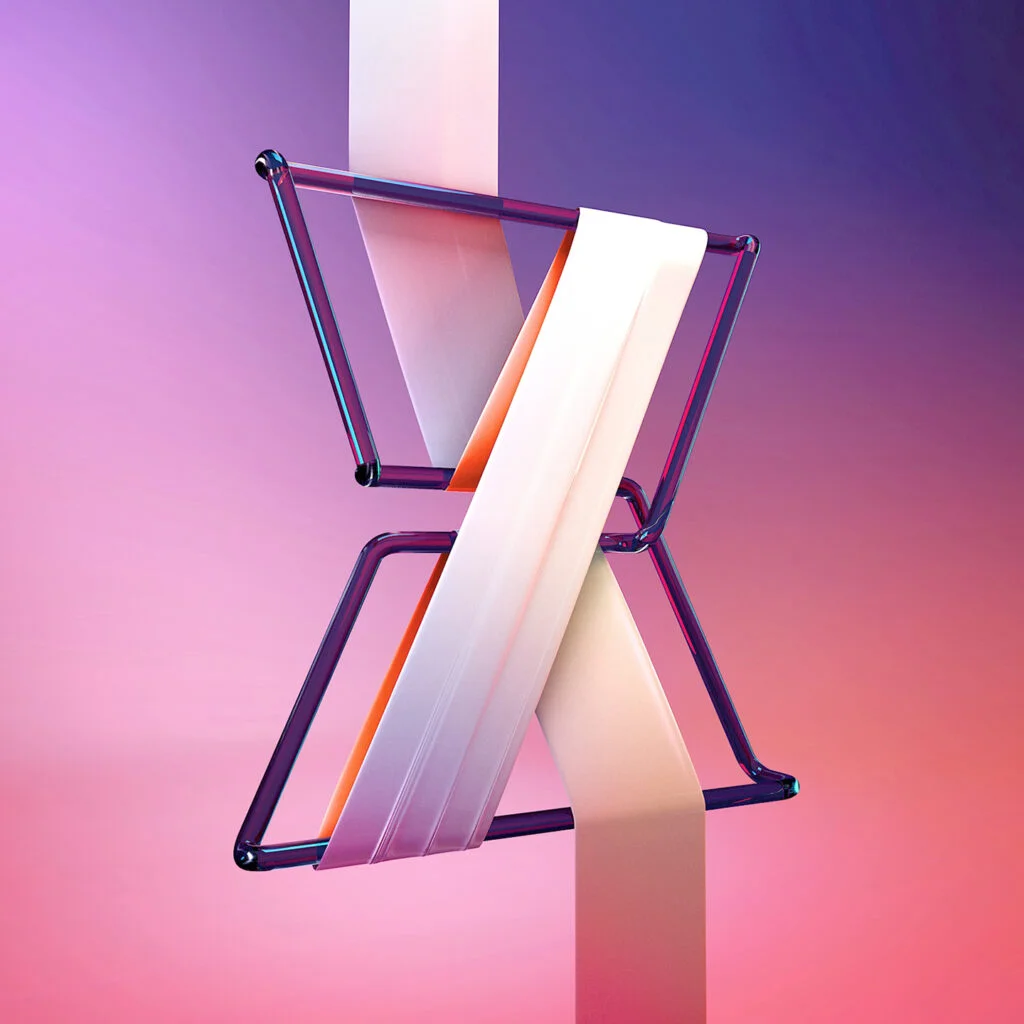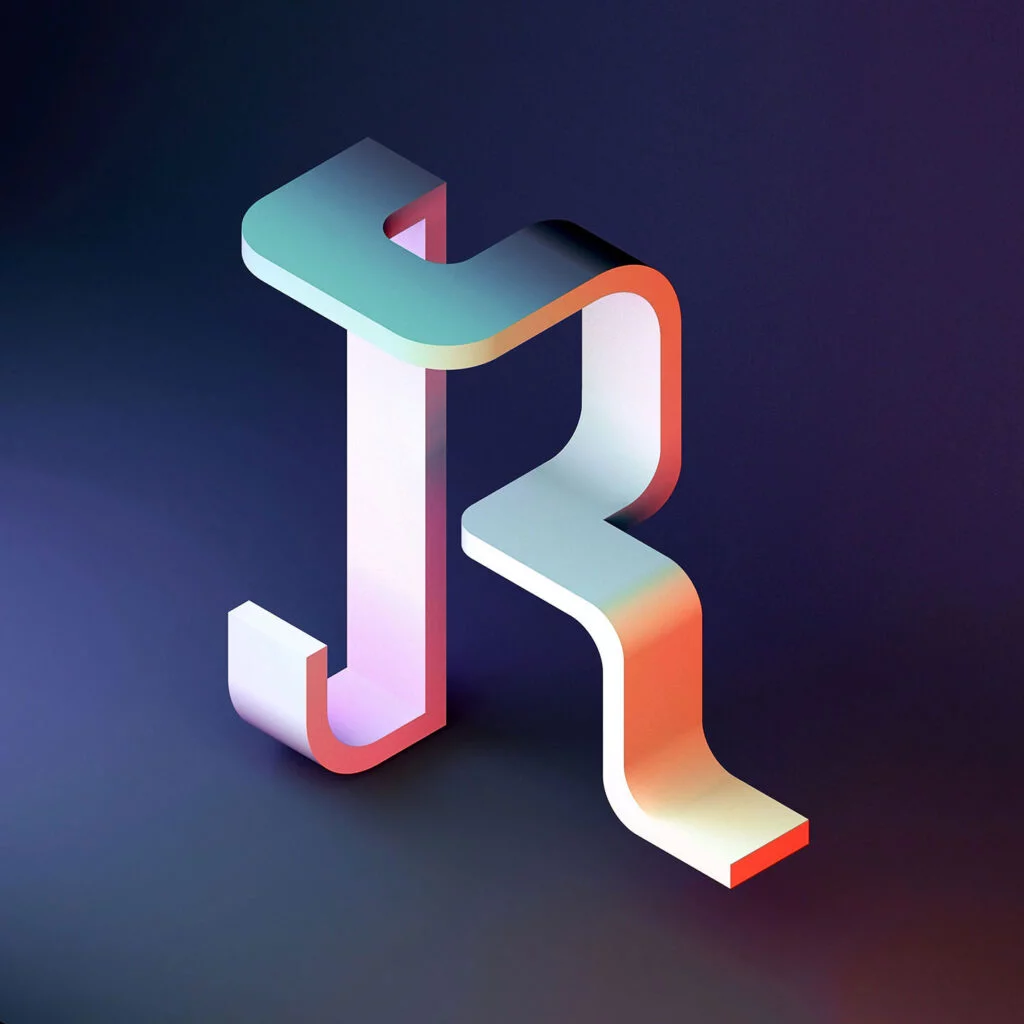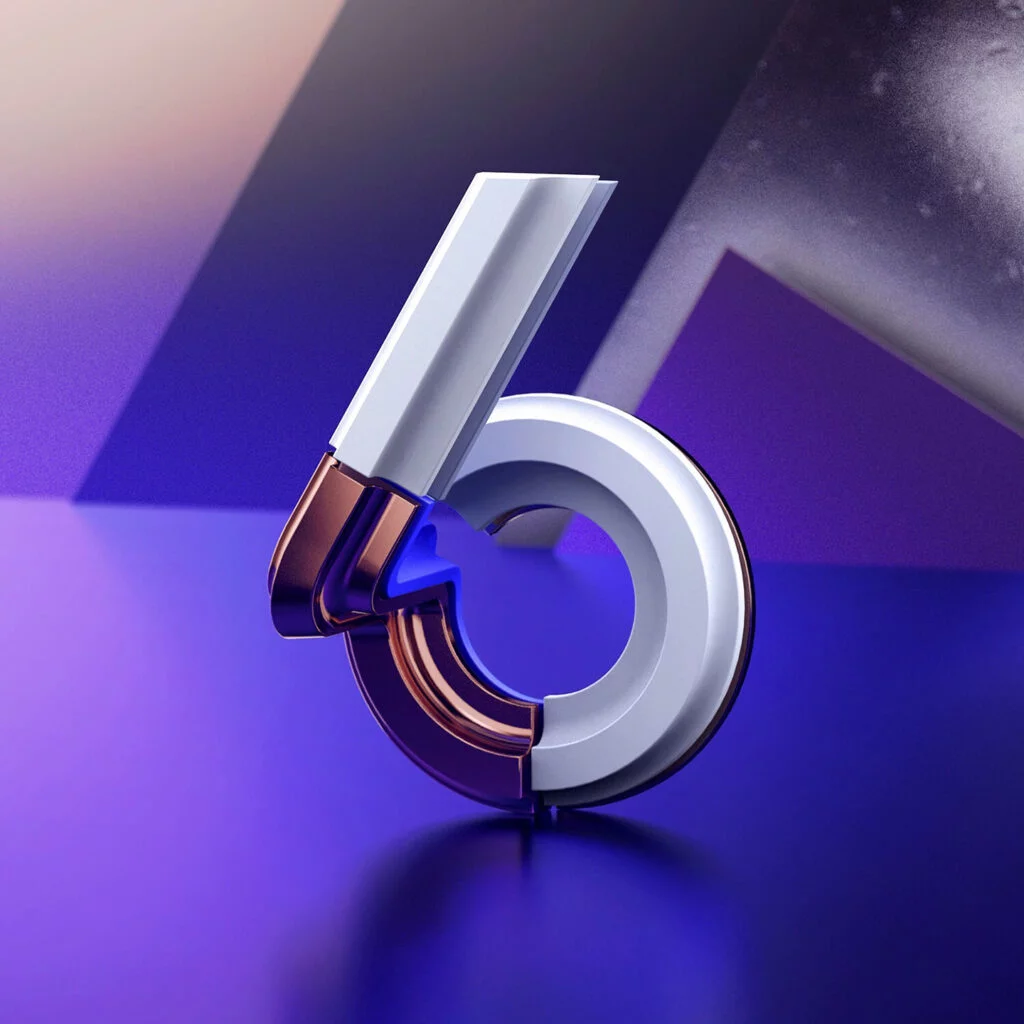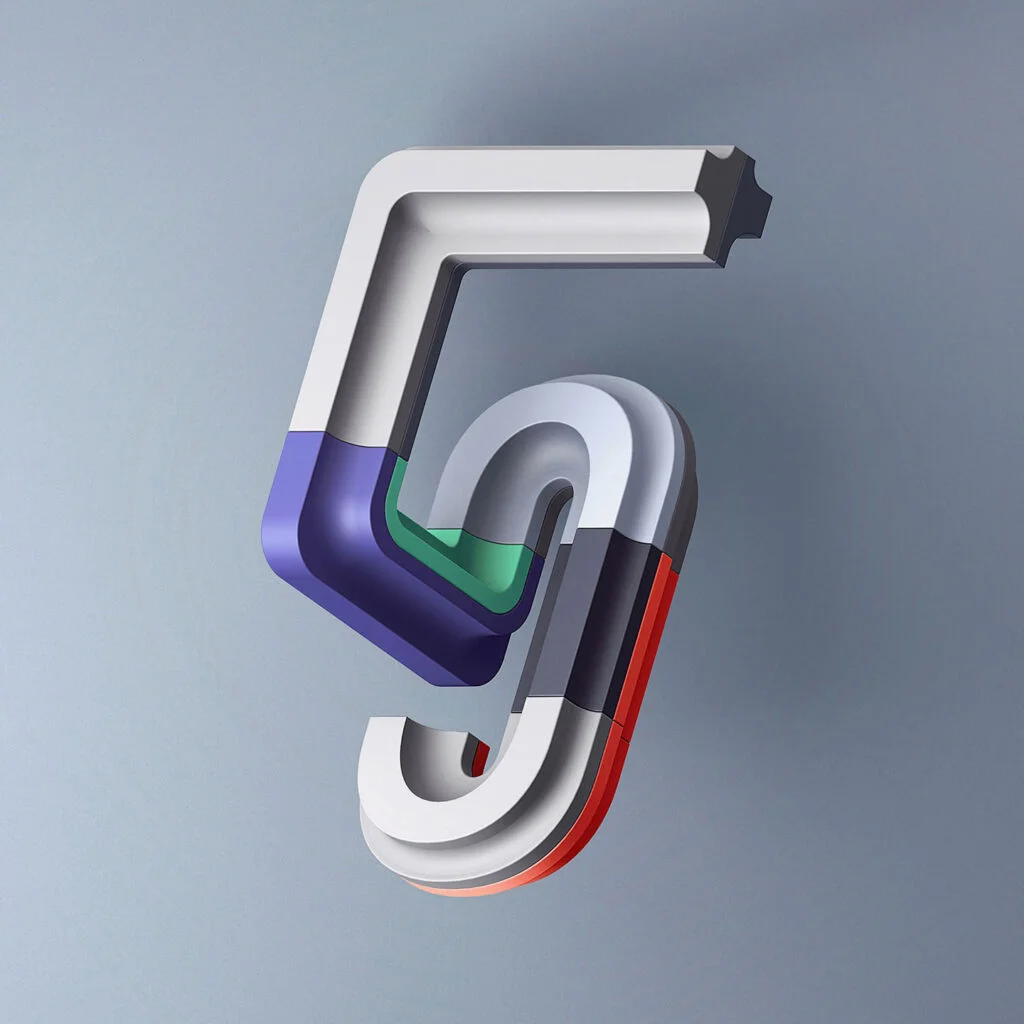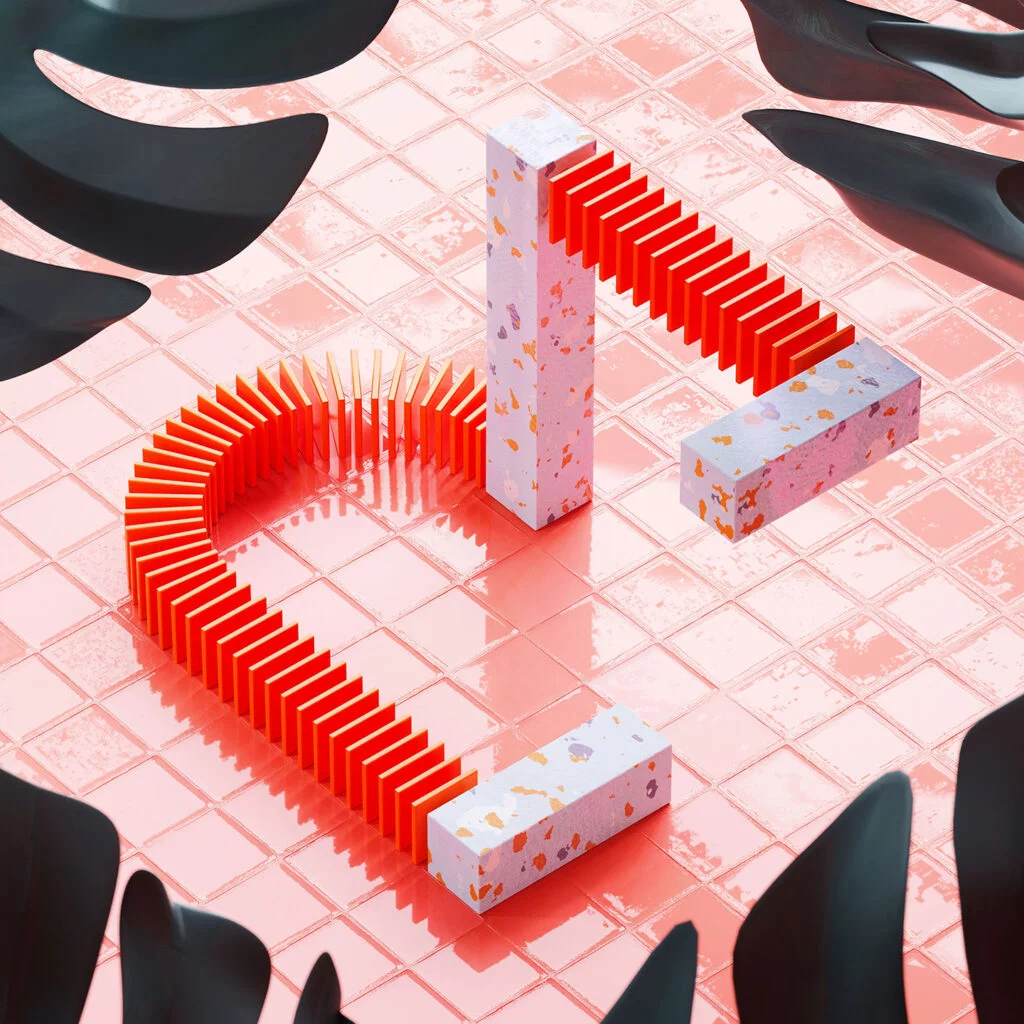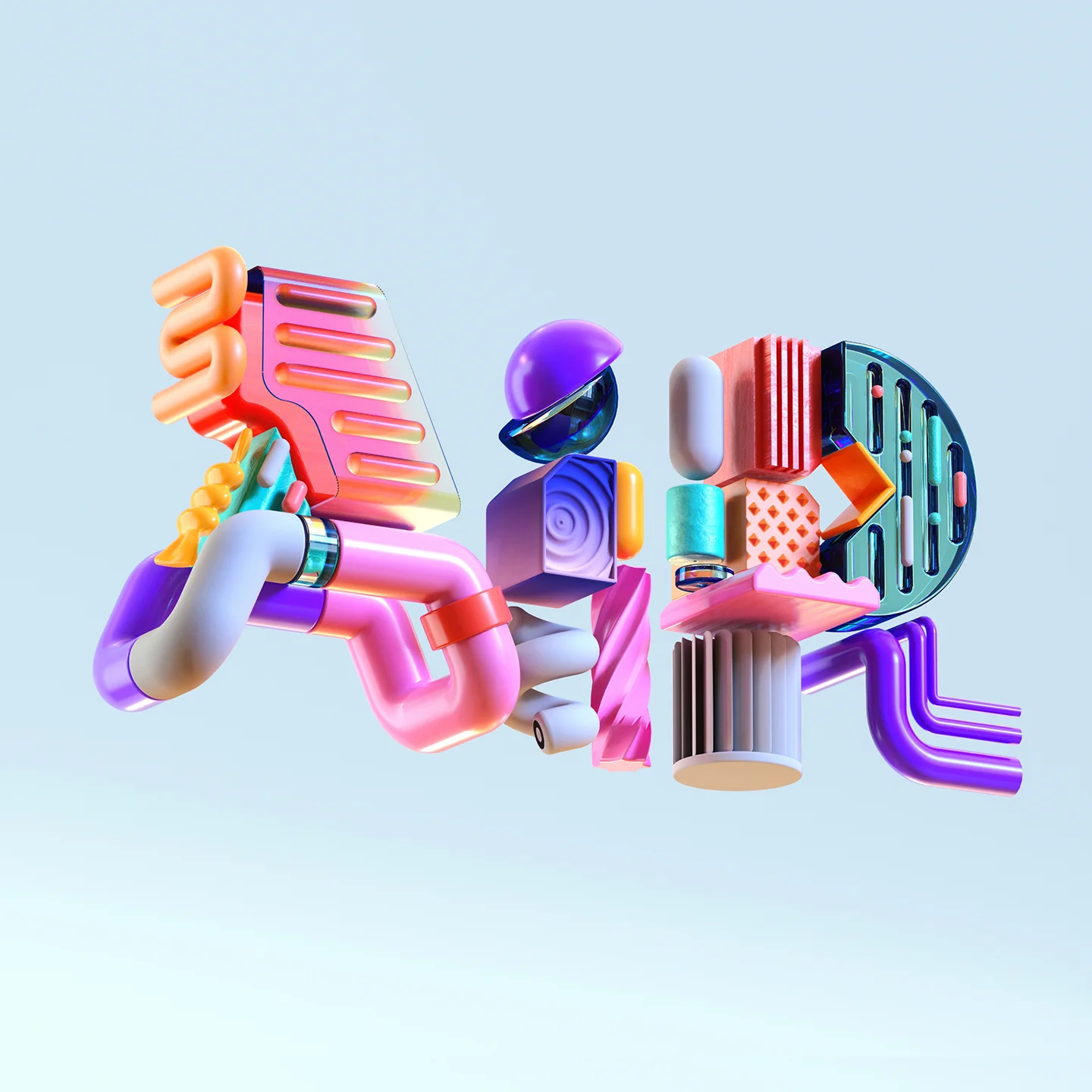
Creating stunning 3D graphics with vibrant textures and typographic forms is Singapore-based brand strategy and creative design consultancy BÜRO UFHO. Dazzled by their type-focused work, we interviewed co-founder Jun to spark a discussion about the field of 3D type.
Amber: Hi Jun, let’s warm-up shall we? Can you tell us more about what you guys do as a studio?
Jun: We’re a visual design studio based in Singapore since 2008, partnering with businesses to help build their visual identity, as well as providing crafted visual imagery for brands to help bring their message across in their marketing campaigns.
A: We want to talk to you about 3D type! What can you tell us about its landscape? Has it become more popular over recent years?
J: We’re excited about 3D Type too! As visual communicators, we have always sought new ways of expression with type to help better convey our clients’ messages. Now 3D tools and skills are more accessible than ever to help push typographical communications into the 3-dimensional environment. Going forward in a mobile-centric world, information not only needs to be engaging and interactive but also entertaining, so we expect to see more content with variations and combinations of 3D type, variable type and animated type for quite some time.
A: What kind of projects have you utilized 3D Type in?
J: Our first use of 3D Type on a commercial project was when we rebranded a music festival called NeonLights, where the client needed an identity that could double up as key visual for their marketing. We created a modular wordmark system that was stacked into a literal neon light installation. Our 3D Type was also used for presentation by Adobe for their conference, where we developed 2 different Ampersands in 3D to spotlight various partnerships. Last year, we had the opportunity to develop 2 key visuals with 3D Type for Adobe’s Experience Business campaign.
A: What software do you use to create your 3D type?
J: Cinema4D with Octane Render, and finalizing with adjustments in Photoshop.
A: How did you get into 3D type/animation? Are there any useful platforms / online tools that people can use to learn how to create it?
J: We’ve always wanted to learn 3D so when we discovered 36 Days of Type on Instagram in 2015, we took the challenge as an exercise to get serious about it, designing a letter a day in 3D. Animation soon became a natural extension and was first used in our branding project for GIF Fest in 2017. We picked up 3D from sites like greyscalegorilla.com and eyedesyn.com where they have tons of useful resources and tutorials to help anyone get started.
A: 3D type has so many possibilities, what’s your favourite thing it as a graphic technique?
J: We love the interactive nature of 3D; how we’re able to present letterforms in a new light, applying different textures and materials; how we’re able to not only make them dynamic and interact with each other but their environment as well. Now that we’re designing all faces of the type in all dimensions, they feel more like sculptures or structures with the possibility to be reproduced as real-world installations.
A: What advice would you give to someone wanting to learn 3D type?
J: Getting real-time preview is a must, so get a PC with 1 or 2 powerful Graphics cards specifically for it. We destroyed 2 iMacs while creating 3D type during the first 2 editions of 36 Days of Type.
A: Any exciting projects you can tell us about?